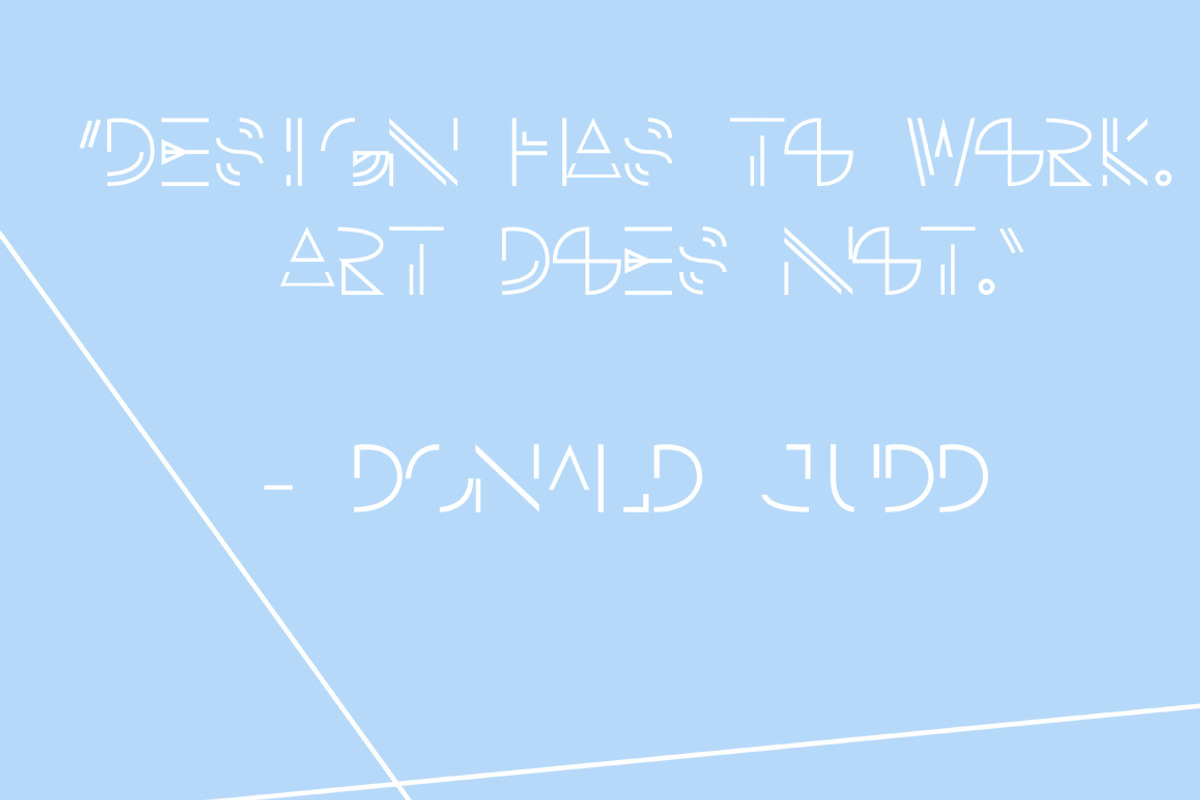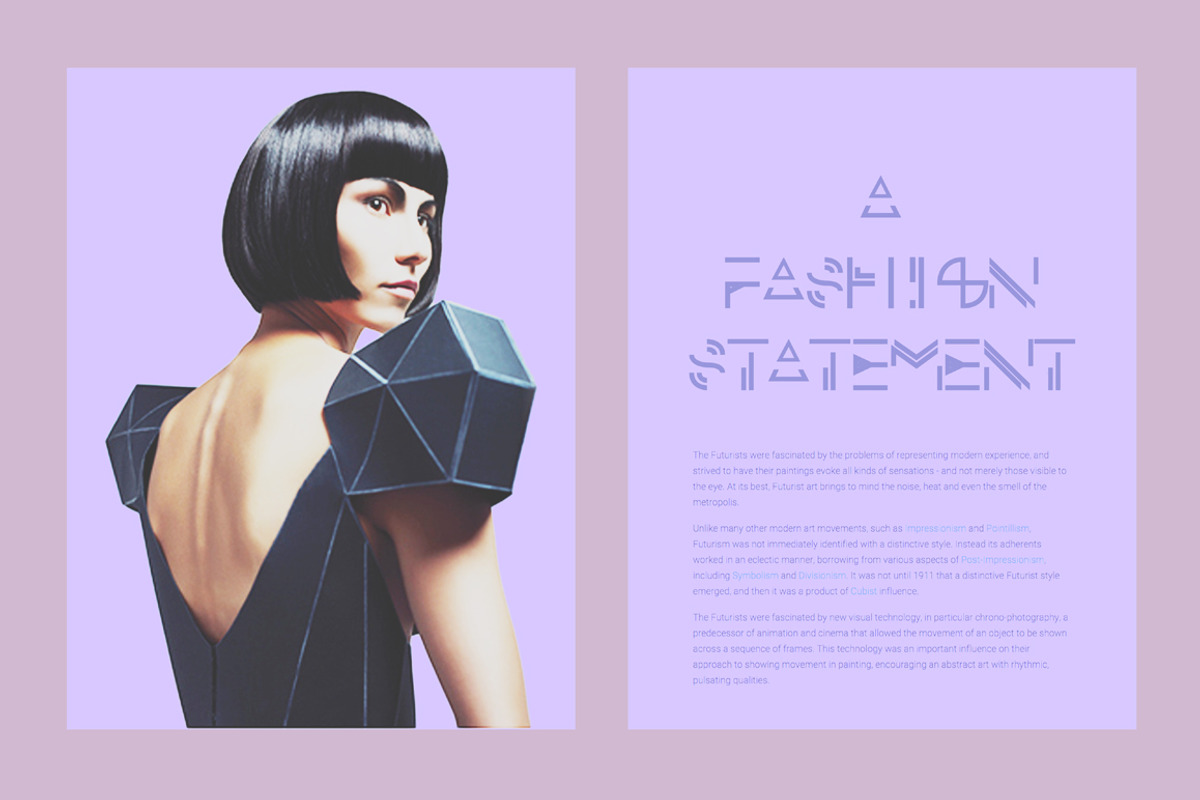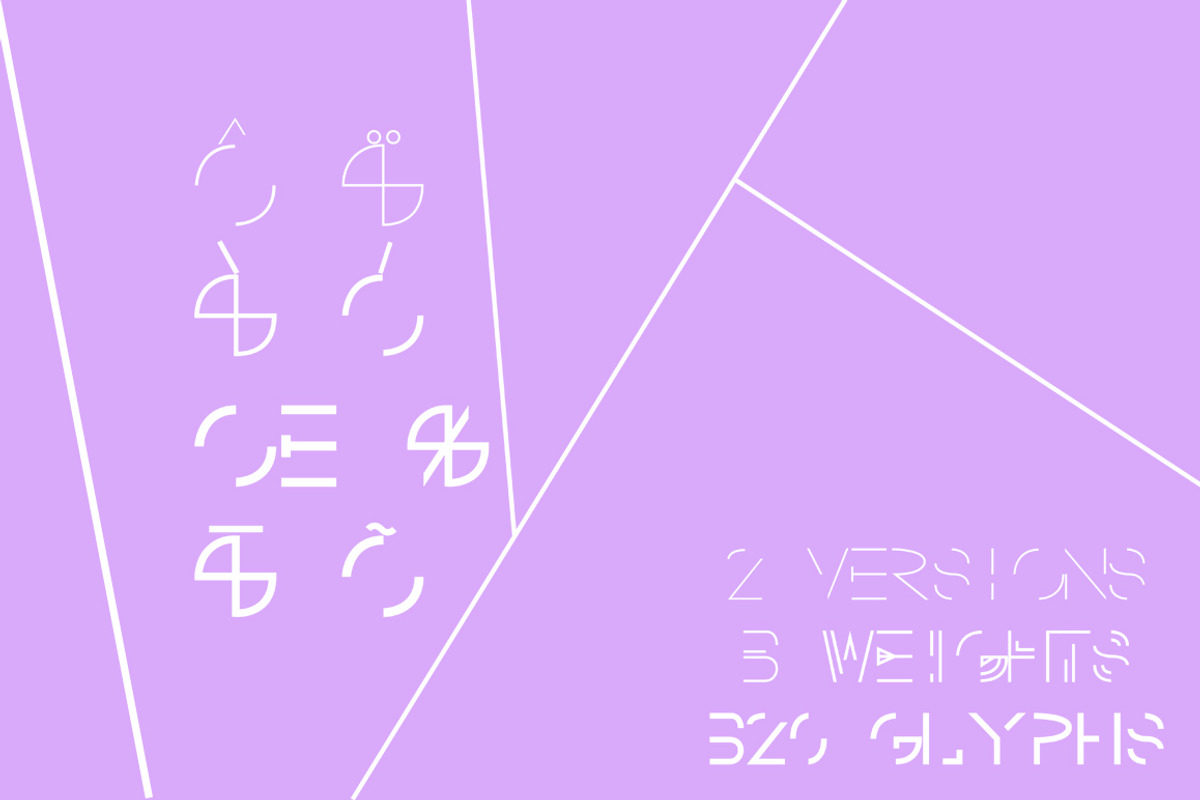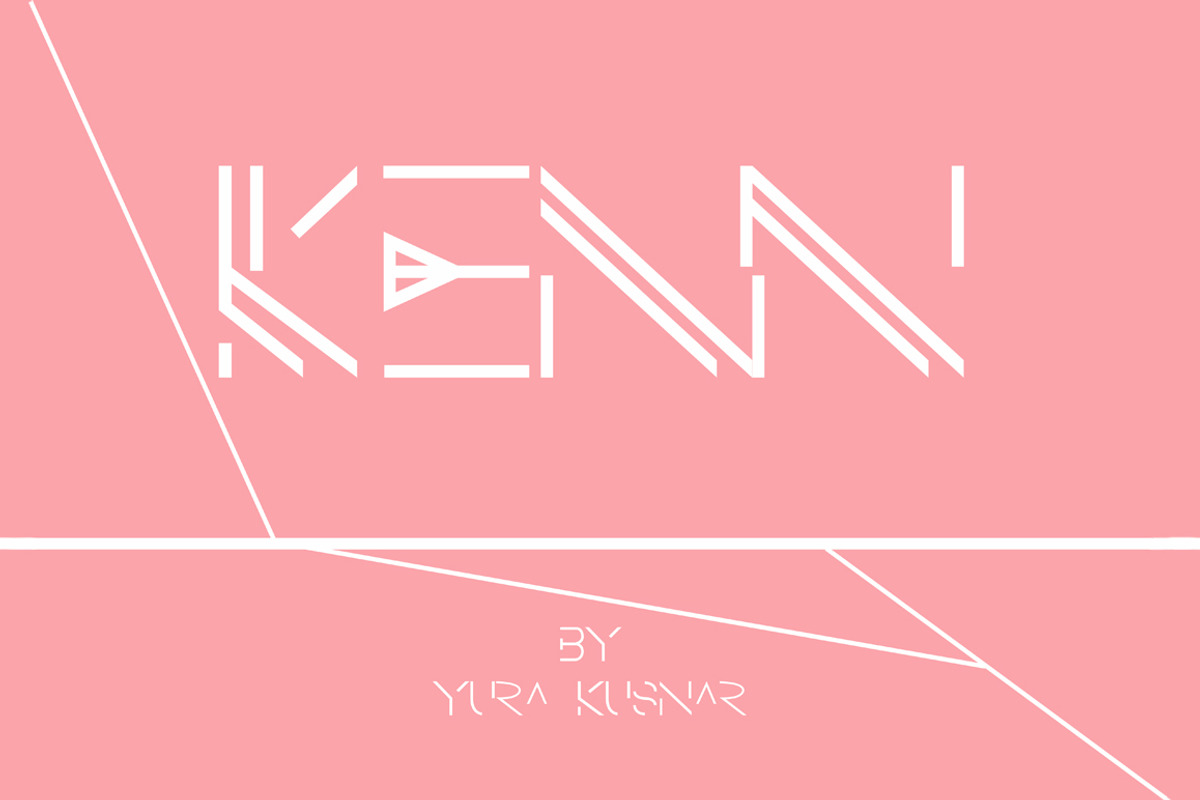
KENN Typeface
KENN Typeface by Alpha Mike Foxtrot is a font selected for branding, posters, packaging, typography.
- KENN is an elegant, minimalist, versatile and edgy sans serif display typeface that includes 2 styles, 3 weights and more than 300 glyphs.
Why KENN Typeface is worth a look
KENN Typeface by Alpha Mike Foxtrot fits naturally into Branding, posters, packaging, typography.